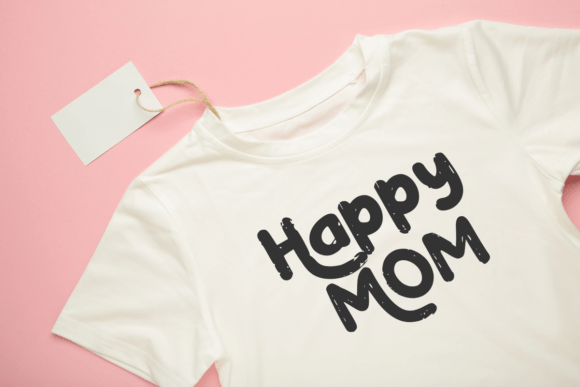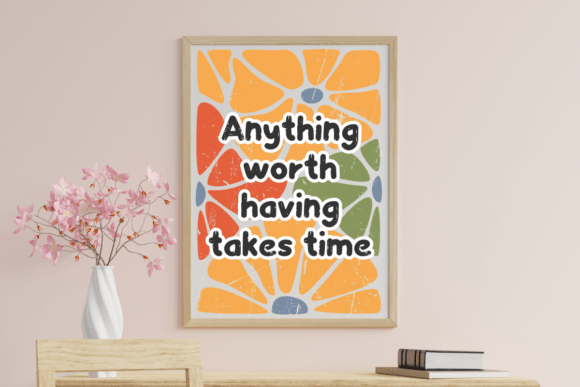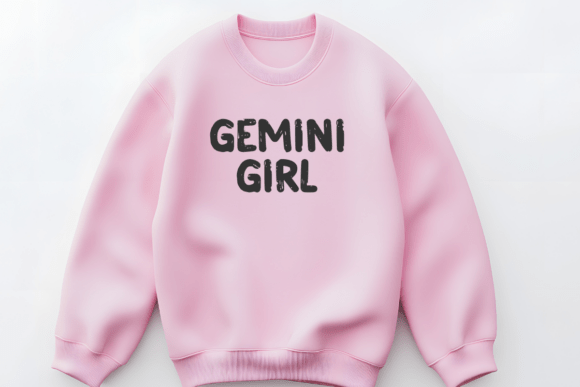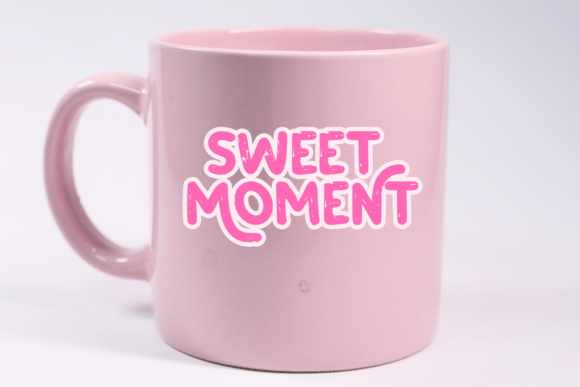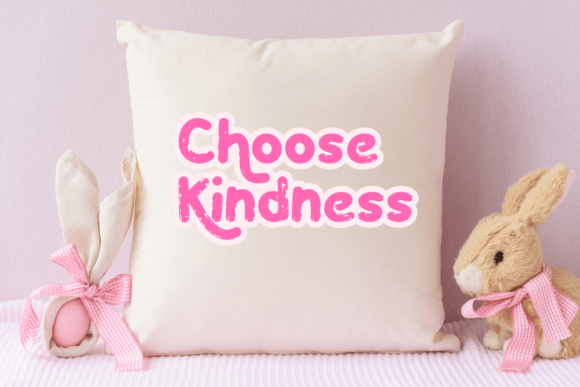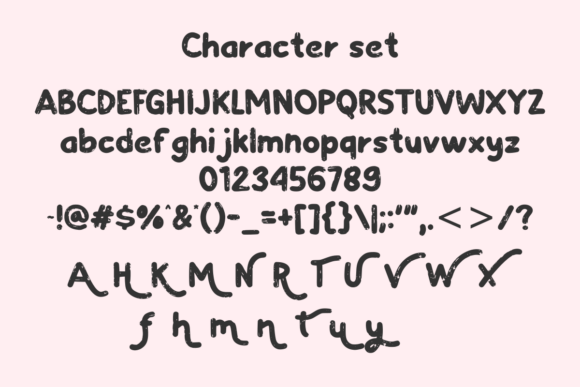
Introduction to Happycheeky Regular Font Font
Fonts play a crucial role in design, and the Happycheeky Regular Font font is a typeface that brings both character and versatility to any project. Whether you’re working on a branding project, a website, or a print design, the Happycheeky Regular Font font offers a unique style that can elevate your work.
βHappy Cheekyβ is a brush-handwritten font that exudes a cheerful and playful personality.
The letters are bold, rounded, and have a soft, organic quality, as if they were quickly painted with a thick brush The texture is a key feature, with the edges of the strokes showing a slight, appealing unevenness and a subtle dry-brush effect that adds to its handmade charm.
Key Features of Happycheeky Regular Font Font
Why Choose Happycheeky Regular Font Font?
The Happycheeky Regular Font font is more than just a typeface β it’s a design tool that helps you communicate your message with style and clarity. Its unique character set and versatile design make it suitable for a wide range of applications, from elegant invitations to bold headlines.
With its carefully crafted letterforms and balanced proportions, the Happycheeky Regular Font font ensures readability and visual appeal across all mediums.
What makes Happycheeky Regular Font font special?
The Happycheeky Regular Font font stands out with its unique design, exceptional readability, and versatility across various design applications.